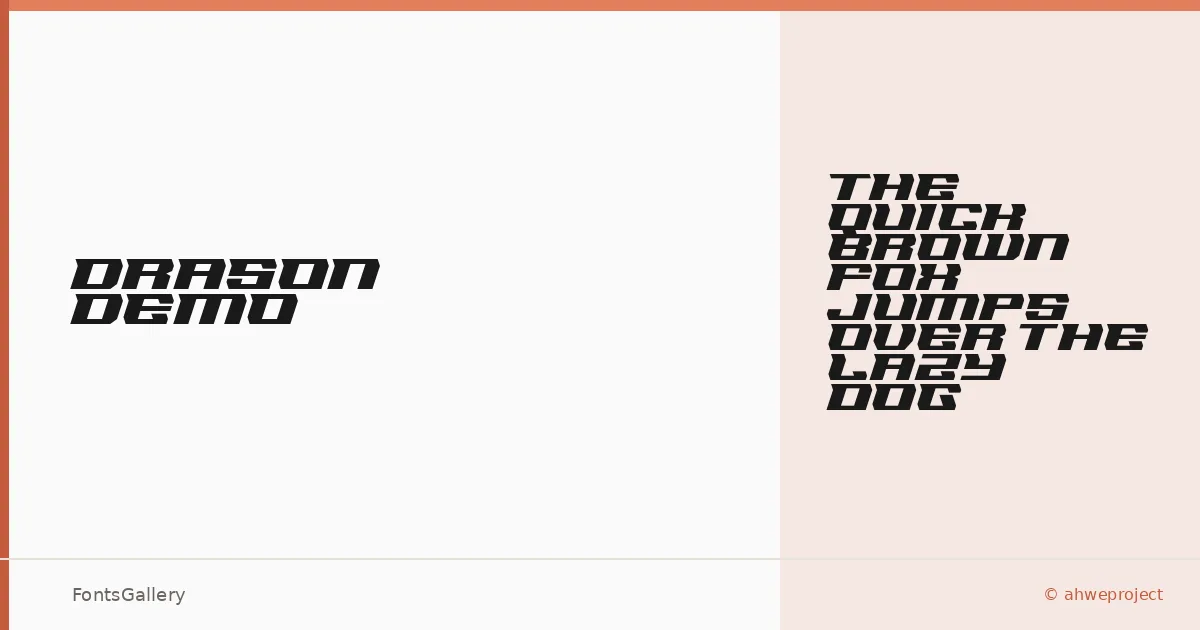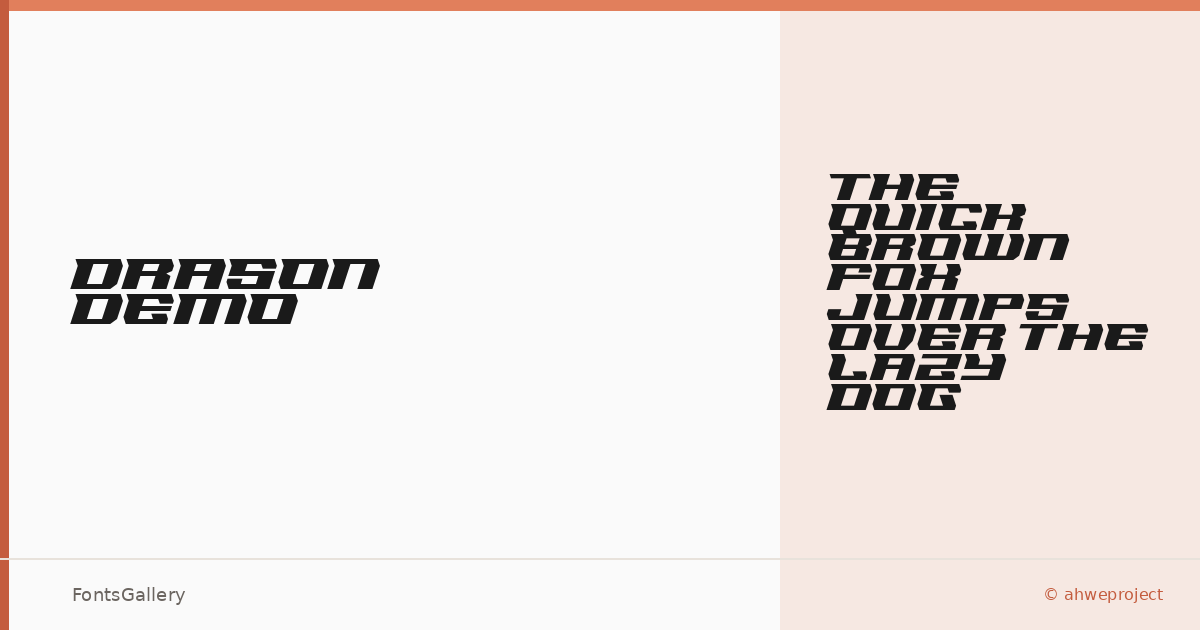
About Drason Demo Font
There is an edge to these letterforms — something angular and deliberately rough that sits between grunge attitude and a clean, modern structure. Drason Demo is a display typeface from designer Dida Ahluddin at ahweproject, offered here as a single Regular cut. The forms carry a futuristic tension, as if industrial geometry has been dragged through a distressed surface and left to cool.
This is a bold, headline-weight display face that does not soften its edges for the reader. The mood is simultaneously modern and raw — the kind of type that reads as confident in large settings without needing ornamentation to hold attention. Available as an OTF file in one style, it is built for situations where a single, strong voice is exactly what the composition needs.
The natural home for these letters is anywhere scale and impact drive the decision: posters, logo treatments, branding identities, and T-shirt graphics all suit the weight and character well. For text-level contrast, the listed pairing families — Helvetica, Aresink, Alexandria, Bizantheum, and Audex — offer a range of neutral and complementary voices that can ground the display work without competing with it.